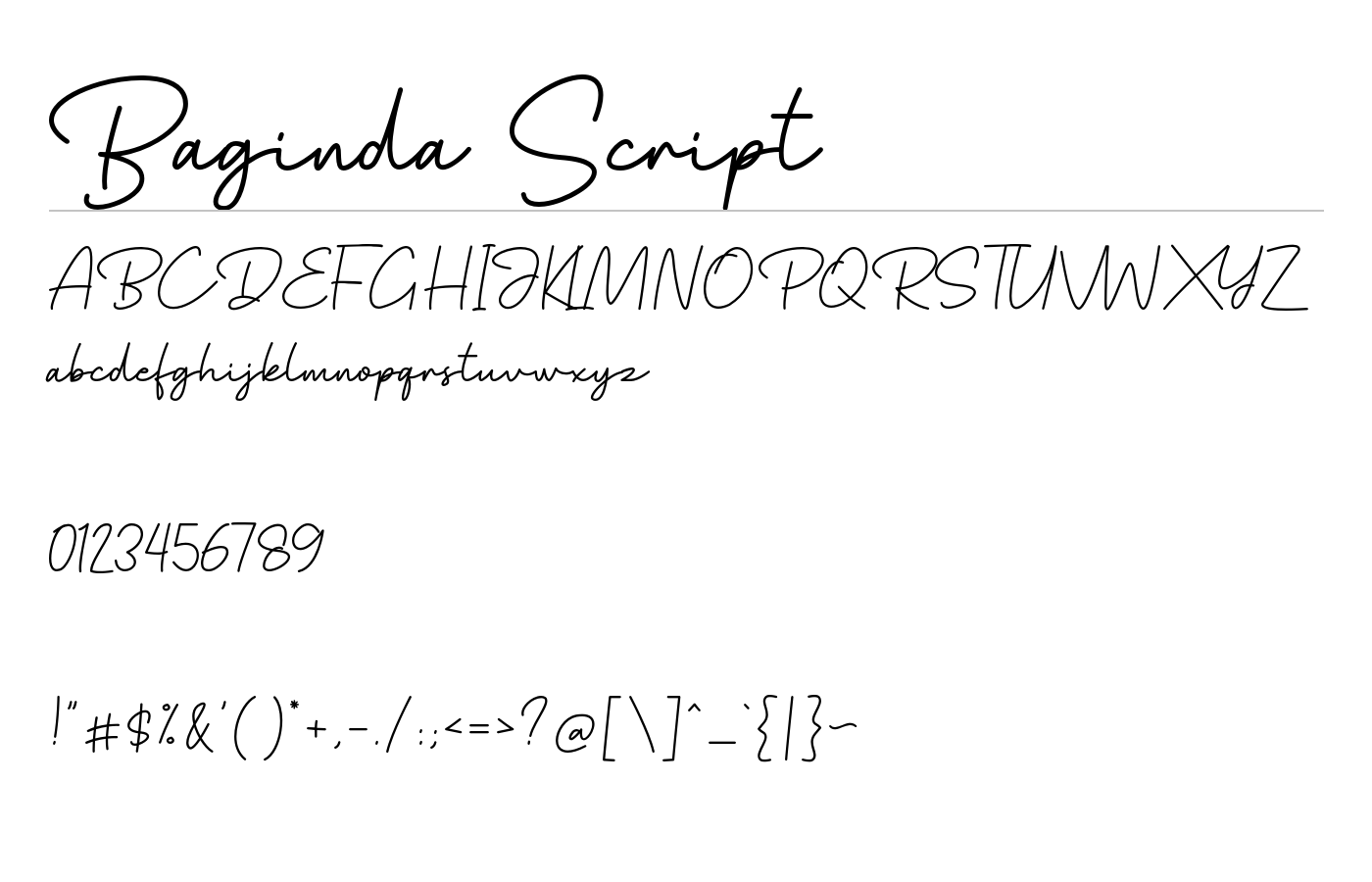
Baginda Script is a delicate and elegant handwritten script font with a light weight and fluid, casual strokes. Its tall, narrow letterforms and fine lines give it a graceful, airy feel, making it perfect for personal branding, invitations, and stylish editorial design. This font’s natural, approachable style works well in contexts where a refined yet friendly touch is desired.
Baginda Script Font
About Baginda Script Font